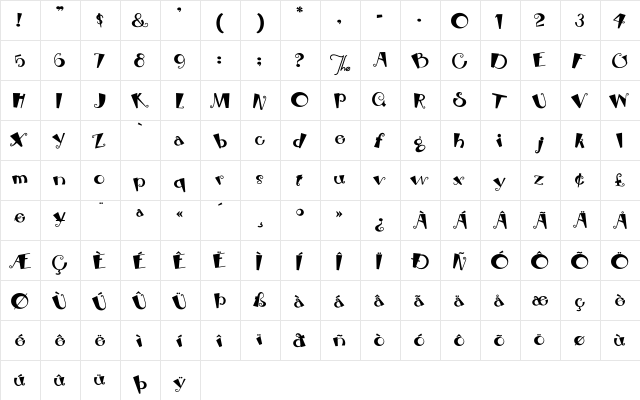
RhubarbPie Regular
Design Context for RhubarbPie Typeface
RhubarbPie is a composed and adaptable typeface that performs quietly and consistently across a wide range of design contexts.